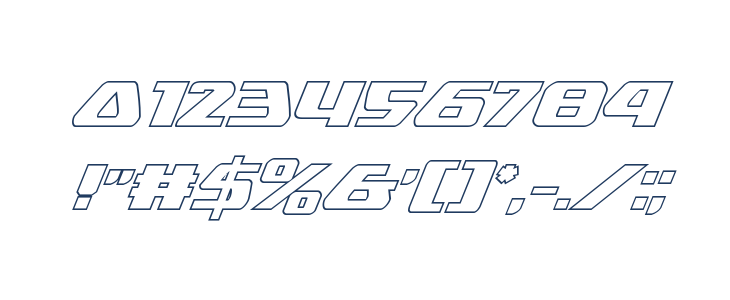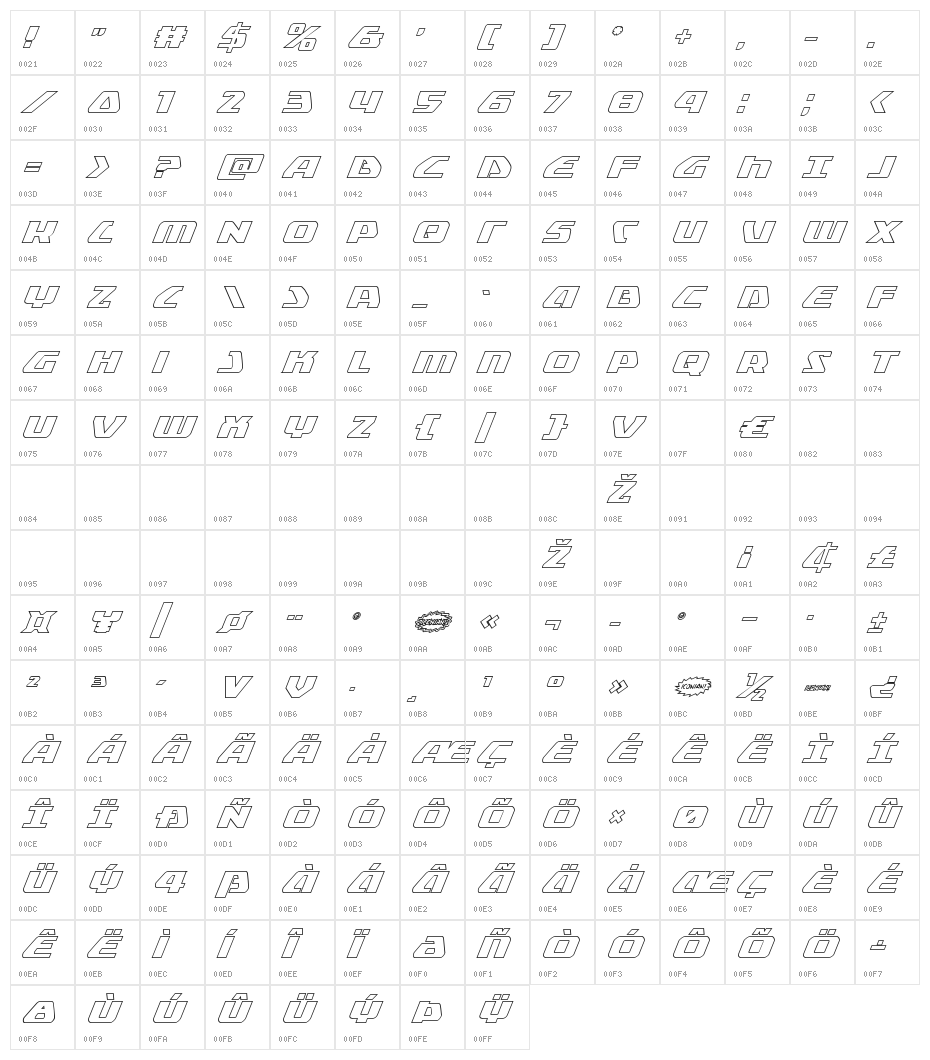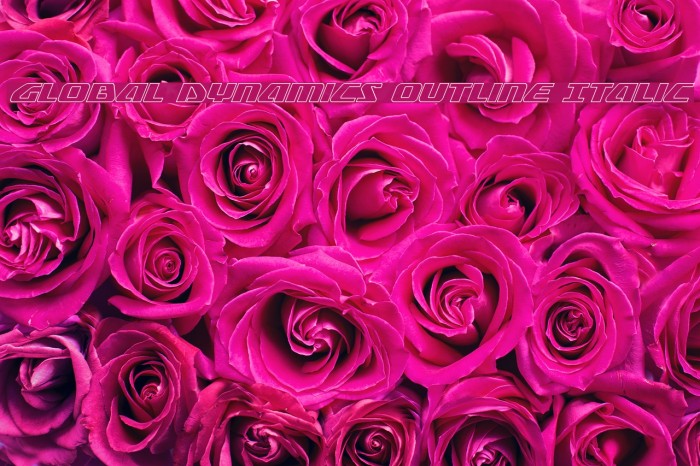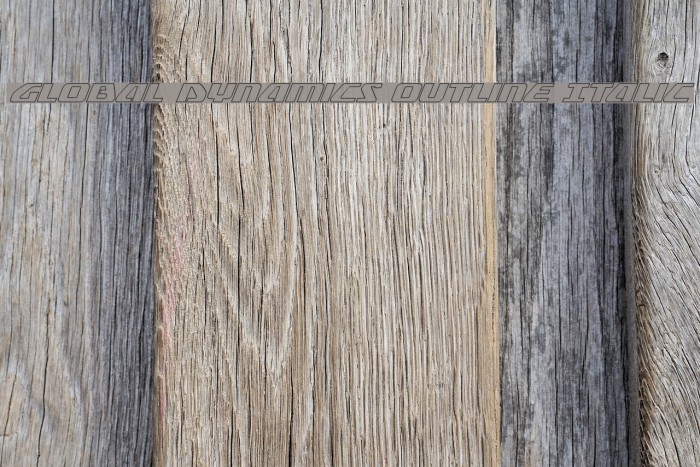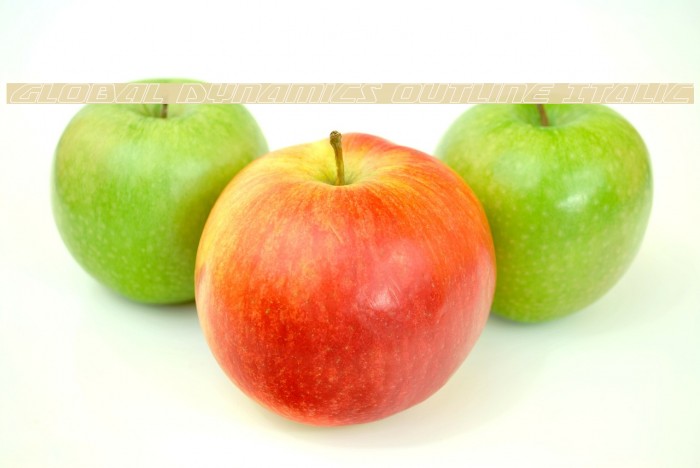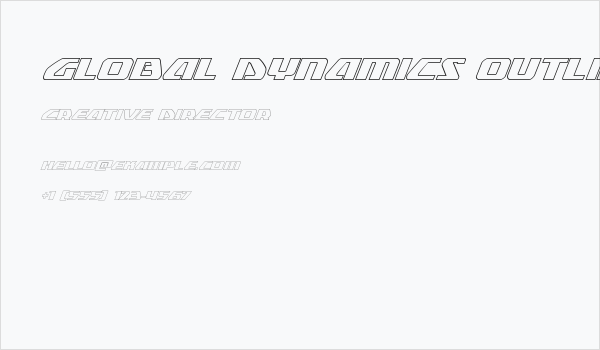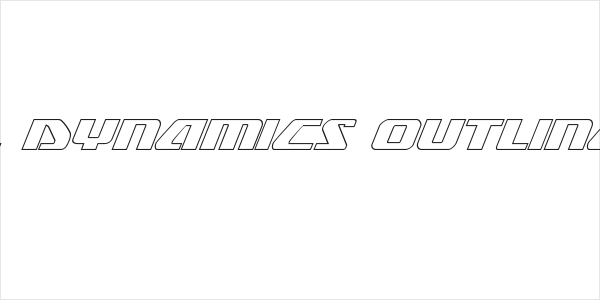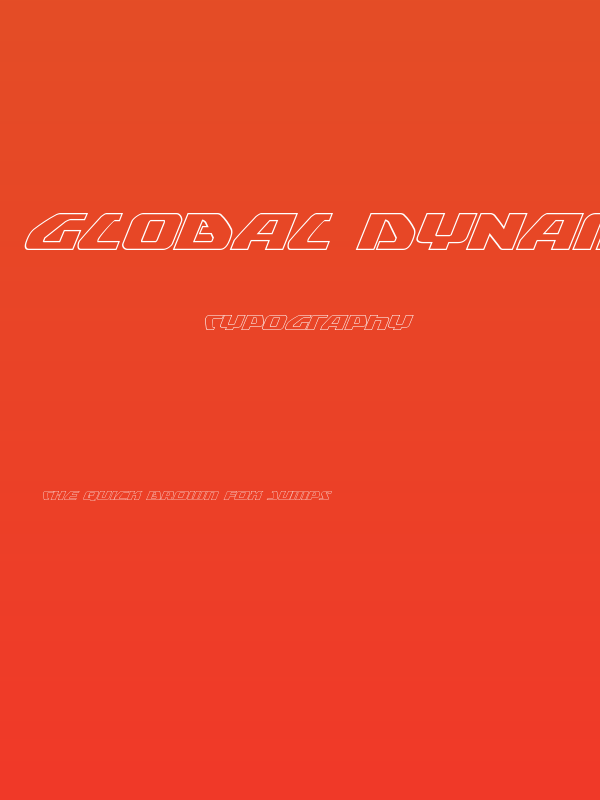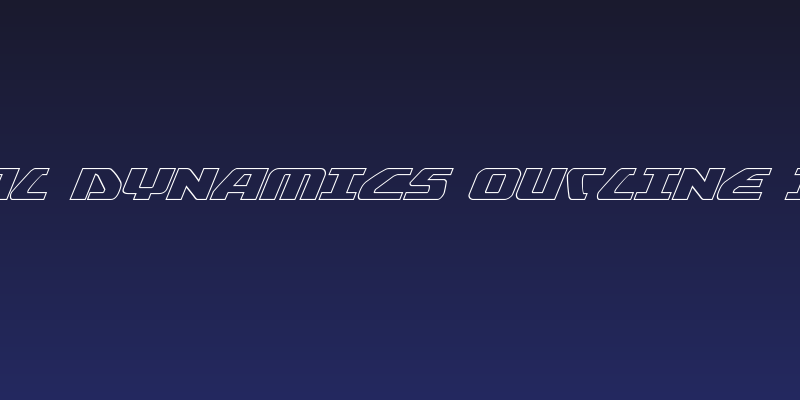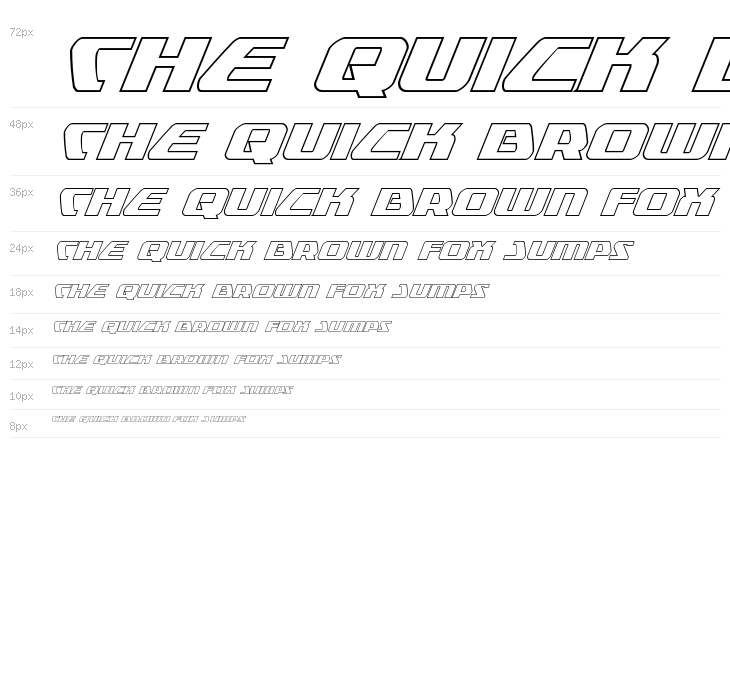
Global Dynamics Outline Italic Font
Global Dynamics Outline Italic Description
This font features a dynamic and futuristic outline style with italicized characters. The geometric shapes and sharp angles give it a modern and sleek appearance, ideal for projects that require a sense of speed and innovation. The uppercase and lowercase letters maintain a consistent style, with numbers and special characters following the same design principles. The outline effect adds a layer of depth, making it suitable for standout headlines and creative designs.
| Proposed Projects | Ideal for tech branding, sci-fi posters, video game titles, and modern advertising. |